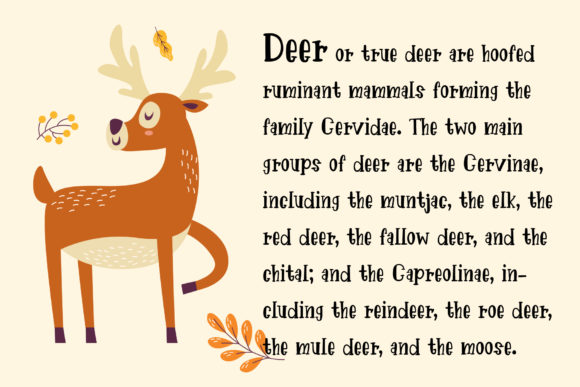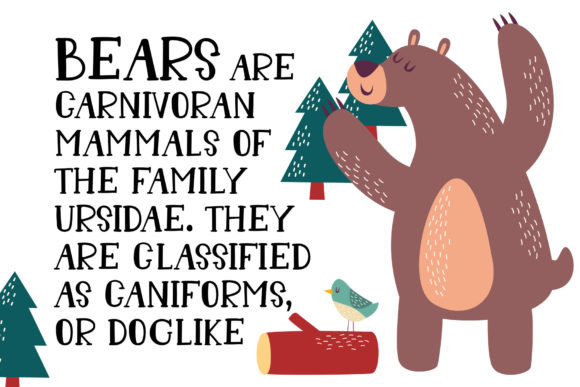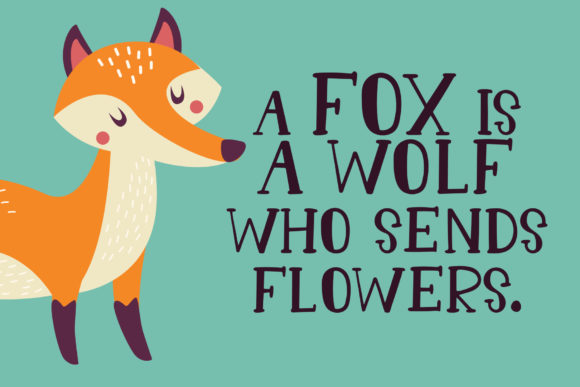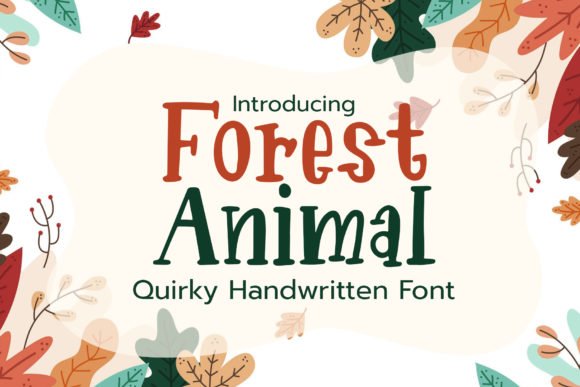
Introduction to Forest Animal Font
Forest Animal is a cute and quirky handwritten font.
It has a cartoon like style and is ideal for a variety of children related designs .
Key Features of Forest Animal Font
Why Choose Forest Animal Font?